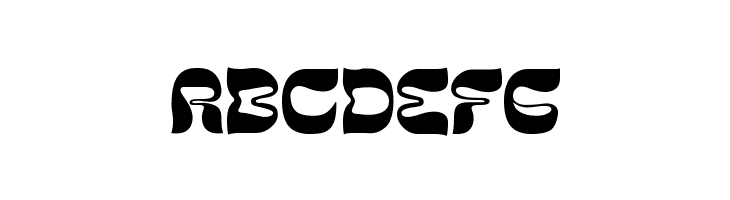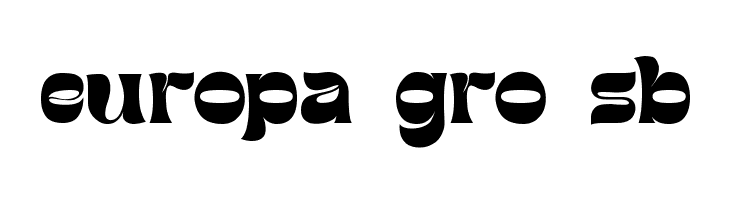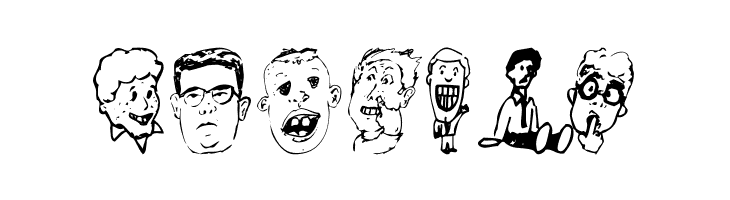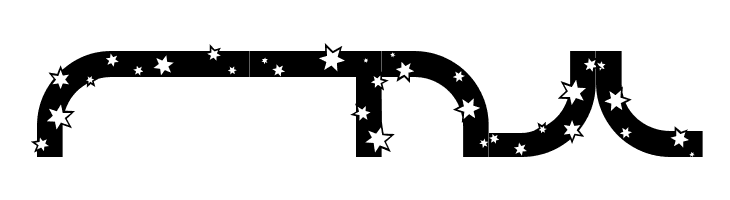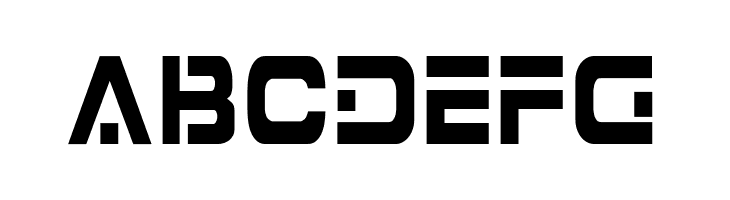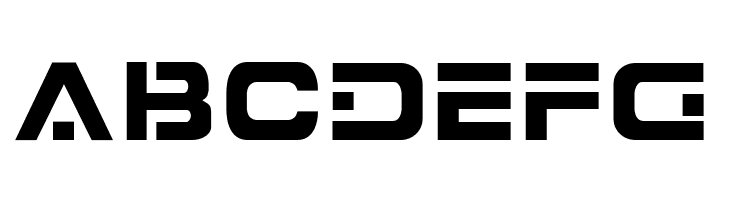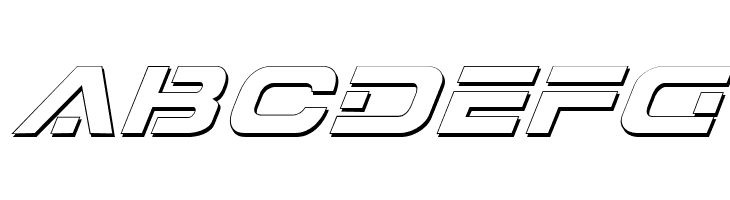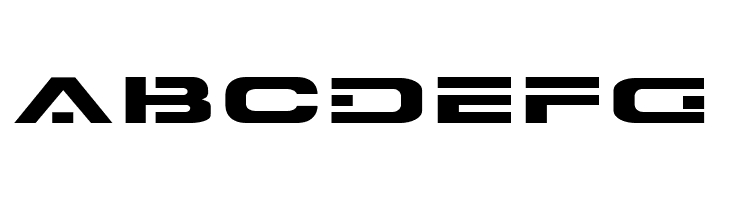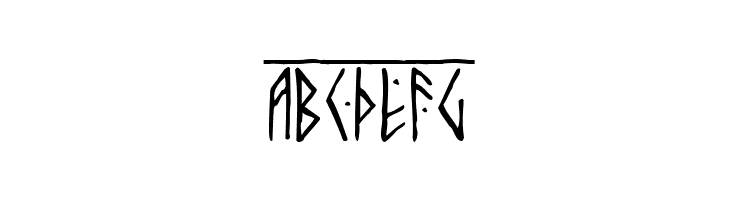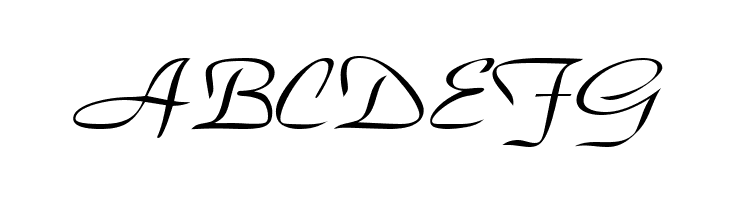
A bold, decorative font with high contrast and artistic flair.
A dramatic blackletter font with ornate, gothic-inspired details.
A bold, pixelated font with a retro, digital aesthetic.
A decorative font of hand-drawn cartoon faces, each with unique expressions.
A decorative and playful font filled with unique patterns and shapes.
A bold, futuristic font with geometric shapes and unique horizontal cuts.
A bold, geometric font with a modern, industrial design and condensed width.
A bold, futuristic italic font with geometric precision and dynamic style.
A bold, geometric font with a modern, industrial aesthetic and semi-condensed width.
A modern, italicized outline font with a futuristic and technical design.
A futuristic, expanded italic font with bold, angular shapes and unique cutouts.
A bold, futuristic stencil-style font with angular, forward-leaning characters.
A modern, geometric outline font with a futuristic and airy design.
A bold, futuristic font with geometric and technical design elements.
A bold, geometric font with a futuristic and digital aesthetic.
A sleek, modern oblique font with sharp angles and a futuristic aesthetic.
A tall, narrow font with thin strokes and a modern, elegant style.
A visual representation of the American Sign Language alphabet through hand gestures.
A decorative, abstract font with geometric and cryptic symbols.
A pixelated, blocky font with a retro digital aesthetic.
An elegant script font with flowing, cursive strokes and refined curves.